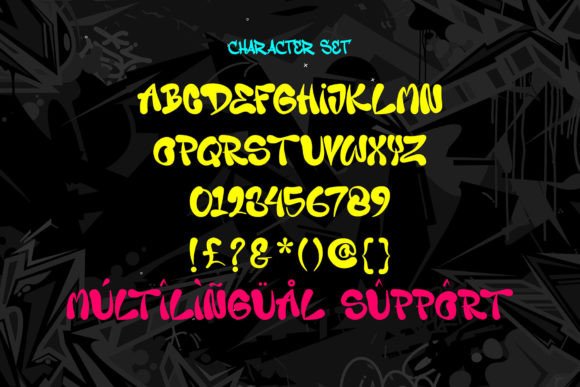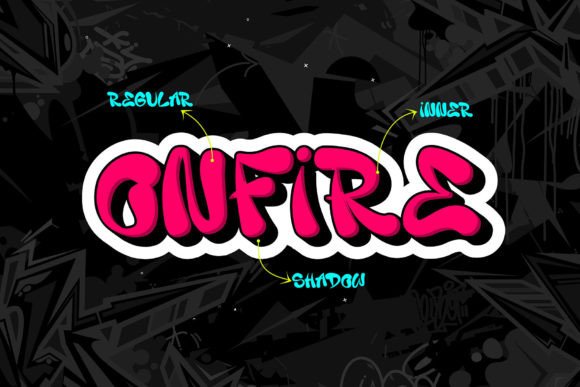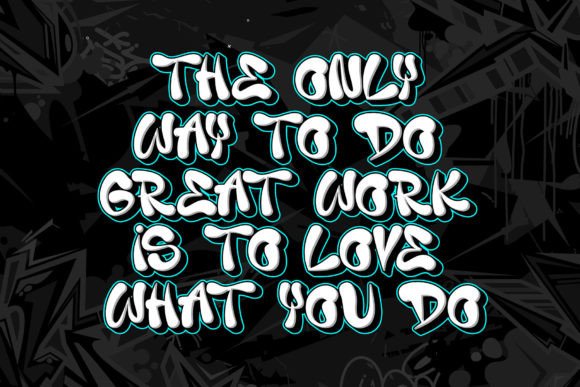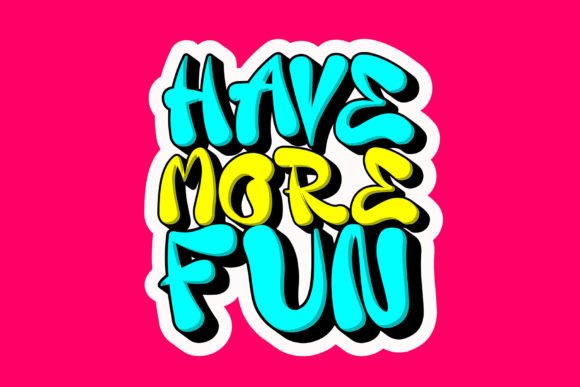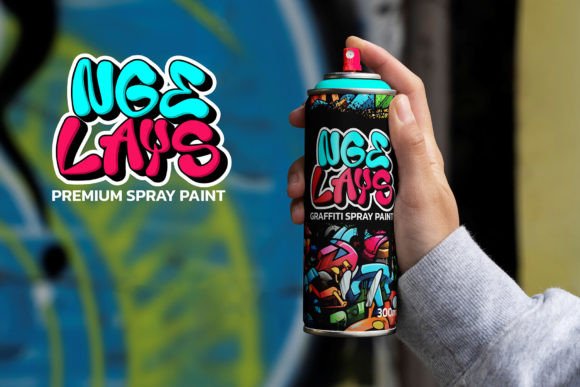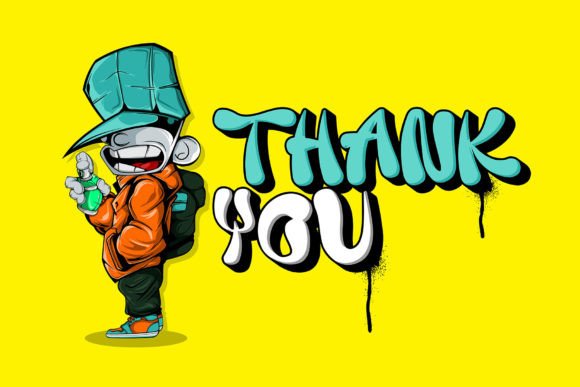
Introduction to Monosock Font
Do you ever find yourself stuck in a design rut, yearning for that perfect font to give your project a much-needed boost of creativity? For many designers, this is a familiar feeling. But what if you could unlock a world of possibilities with a single, versatile font? Look no further than the Monosock Font, a game-changing design resource that’s about to revolutionize your creative projects.
With its layered, graffiti-inspired design, Monosock Font is the ultimate solution for designers seeking a high-quality, bold look that’s sure to make a statement. Whether you’re working on a poster, clothing brand, or any other project that requires a daring aesthetic, Monosock Font is the perfect companion to help you achieve your vision.
- Monosock Font’s distinctive design makes it an excellent choice for creative projects seeking a bold, eye-catching aesthetic.
- Perfect for use in graphic design, digital art, and other creative pursuits where a high-quality, unique font is essential.
Honest Review: Monosock Font
What works well about the Monosock Font is its unique and quirky design style. It’s perfect for adding a touch of personality to your design work. The font is also super versatile and can be used for a variety of creative projects, from logos to editorial content.
- Unique and quirky design style
One potential limitation of the Monosock Font is its limited character set. This might make it less suitable for projects that require a wide range of characters, such as long blocks of text.
Overall, I’d say the Monosock Font is a great addition to any designer’s toolkit. While it may have some limitations, its unique design style and high-quality aesthetic make it a great choice for creative projects. ✨ I’d definitely recommend giving it a try!
The Monosock Font is a versatile font that can be used in a variety of creative projects, including logos, brochures, and business cards. It’s also a great choice for designers who want to add a unique and high-quality touch to their designs.
To get the most out of the Monosock Font, try using it in combination with other design elements, such as graphics and images. You can also experiment with different font sizes and colors to create a unique visual effect.
Comparison to Monosock Font: Open Sans is more versatile and can be used for both body text and headings, whereas Monosock Font is more suited for titles and headings.
Comparison to Monosock Font: Lato is more polished and refined than Monosock Font, making it a great choice for projects that require a high level of sophistication.
Is the Monosock Font suitable for high-resolution designs?
Yes, the Monosock Font is designed to be high-quality and suitable for high-resolution designs. It features clear and crisp characters, making it ideal for use in print materials, such as business cards, brochures, and posters. The font is also optimized for use in digital designs, including websites and social media graphics.